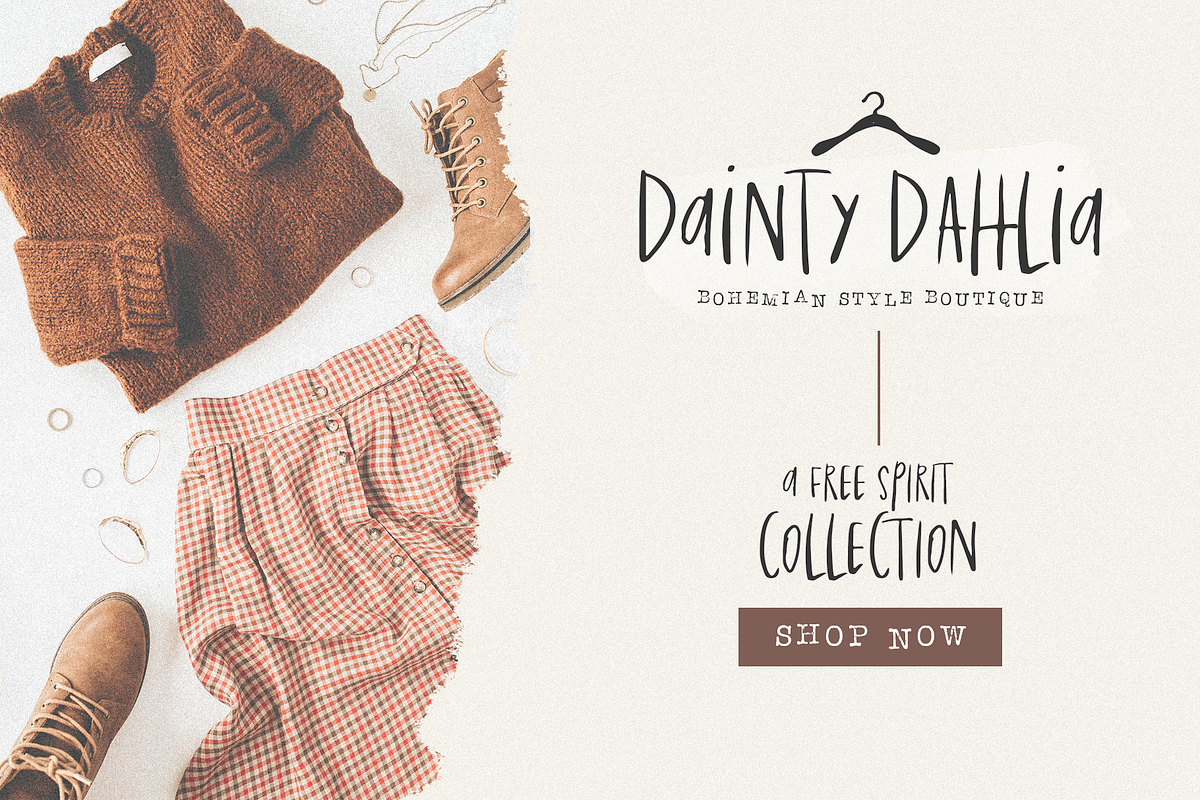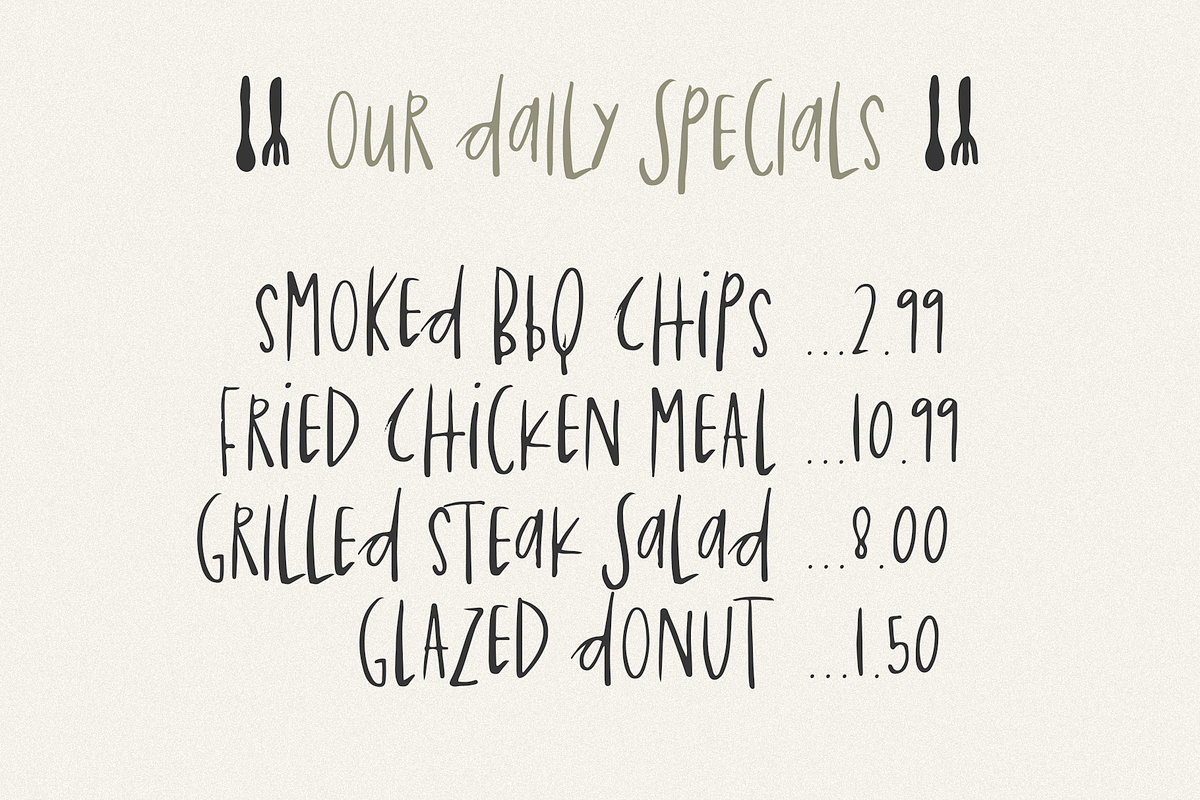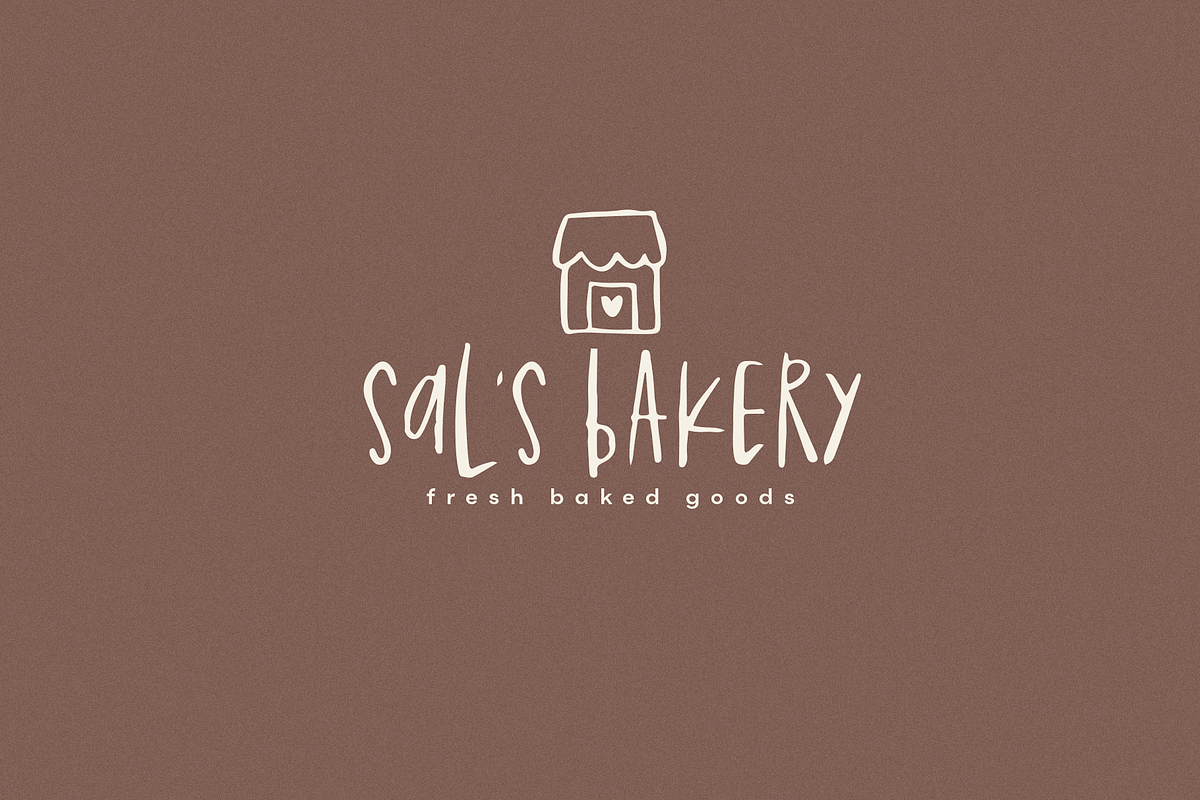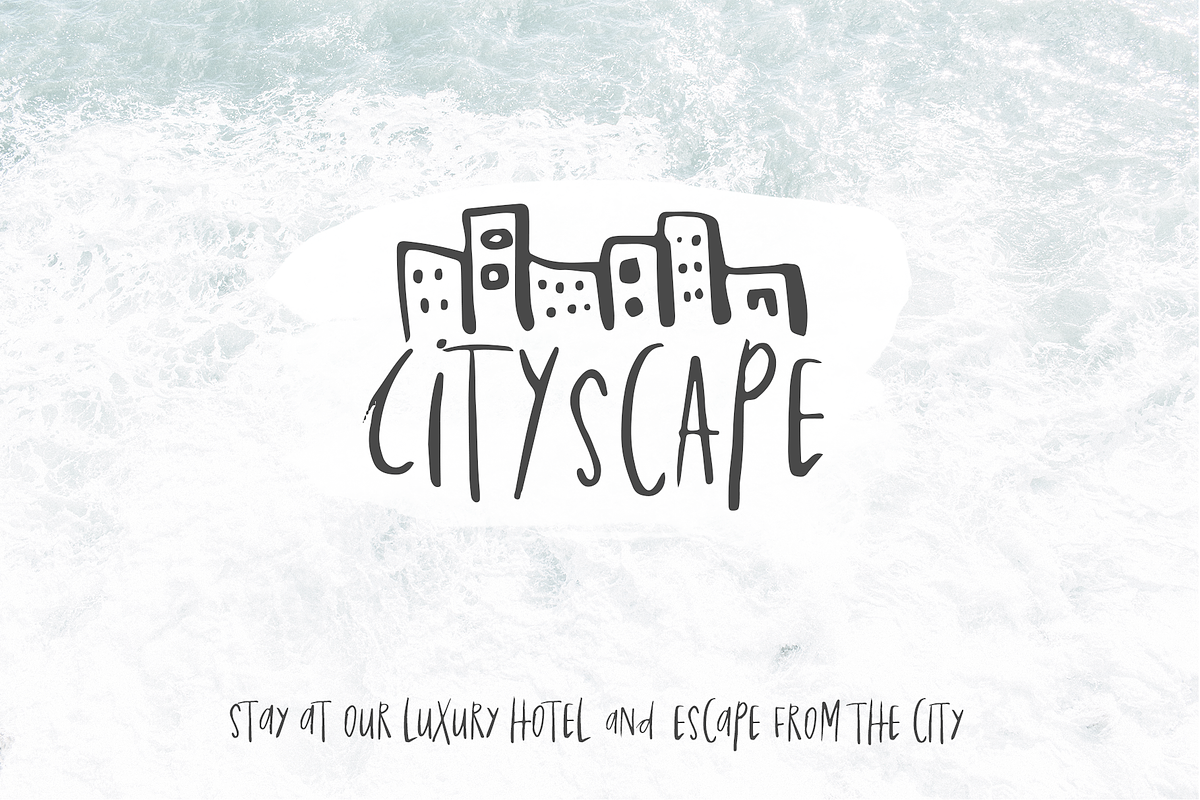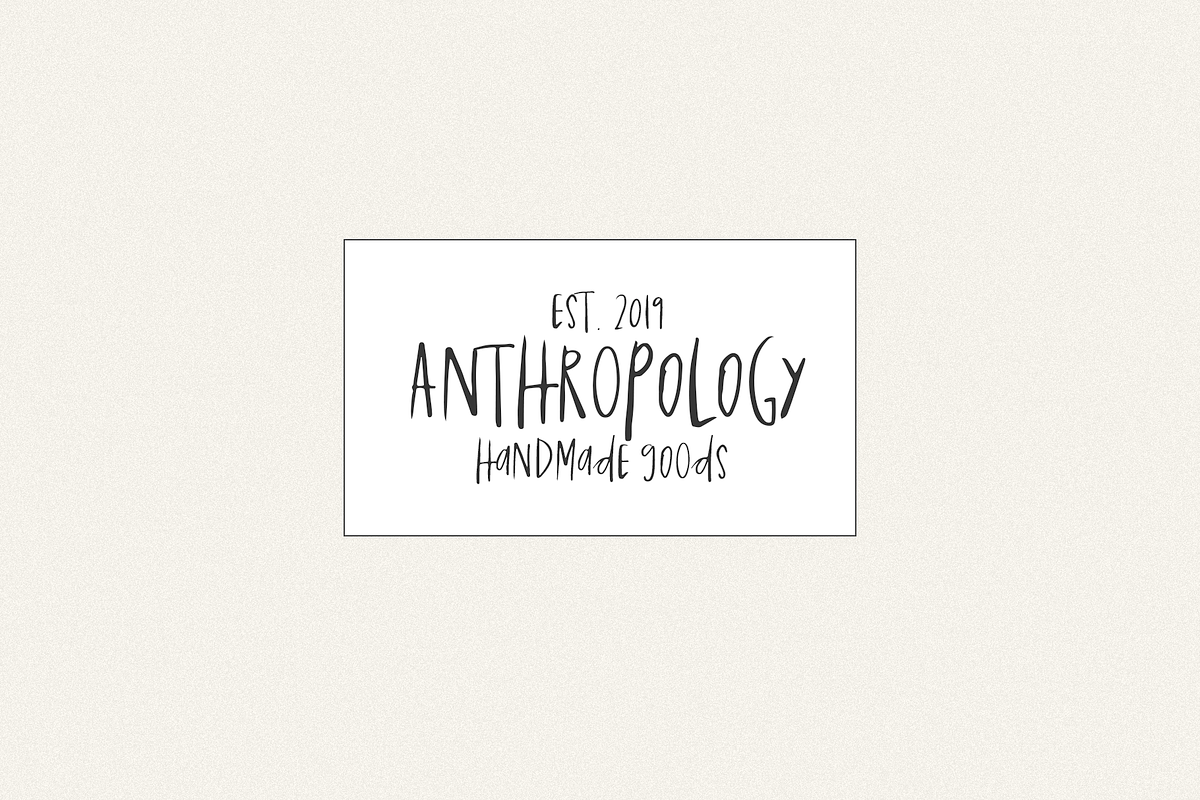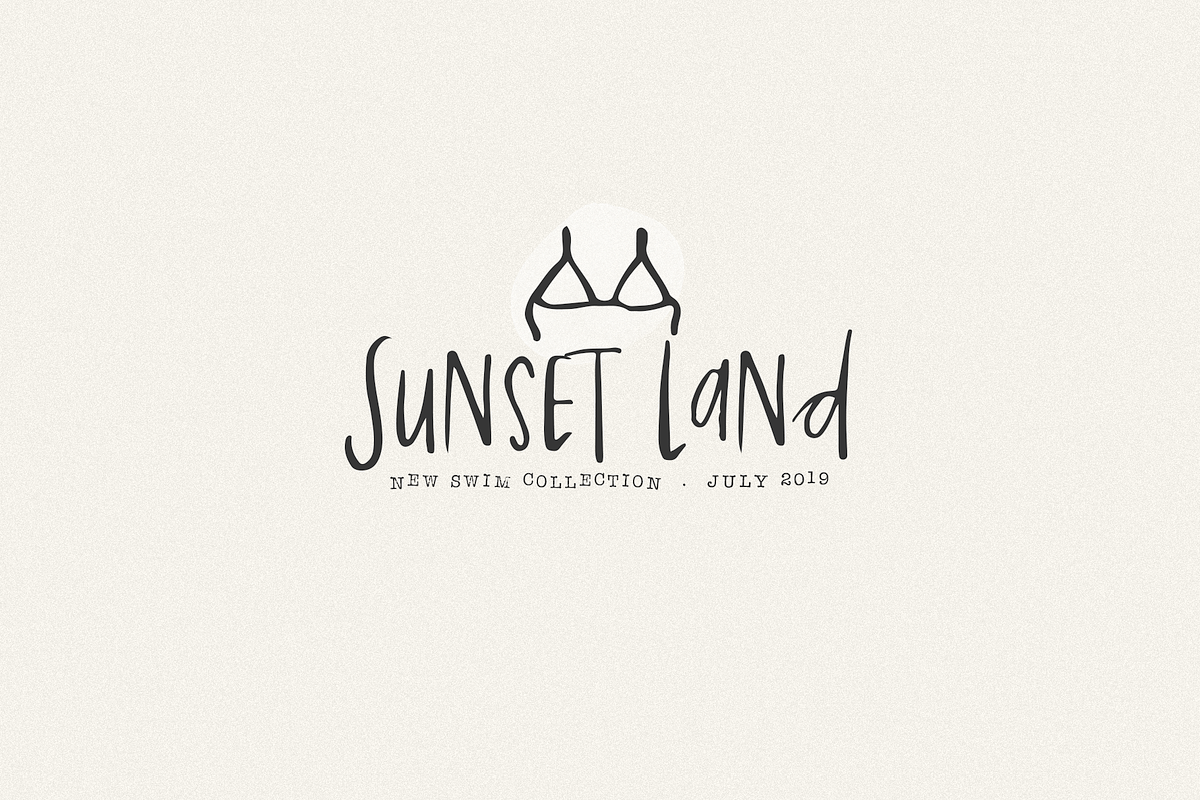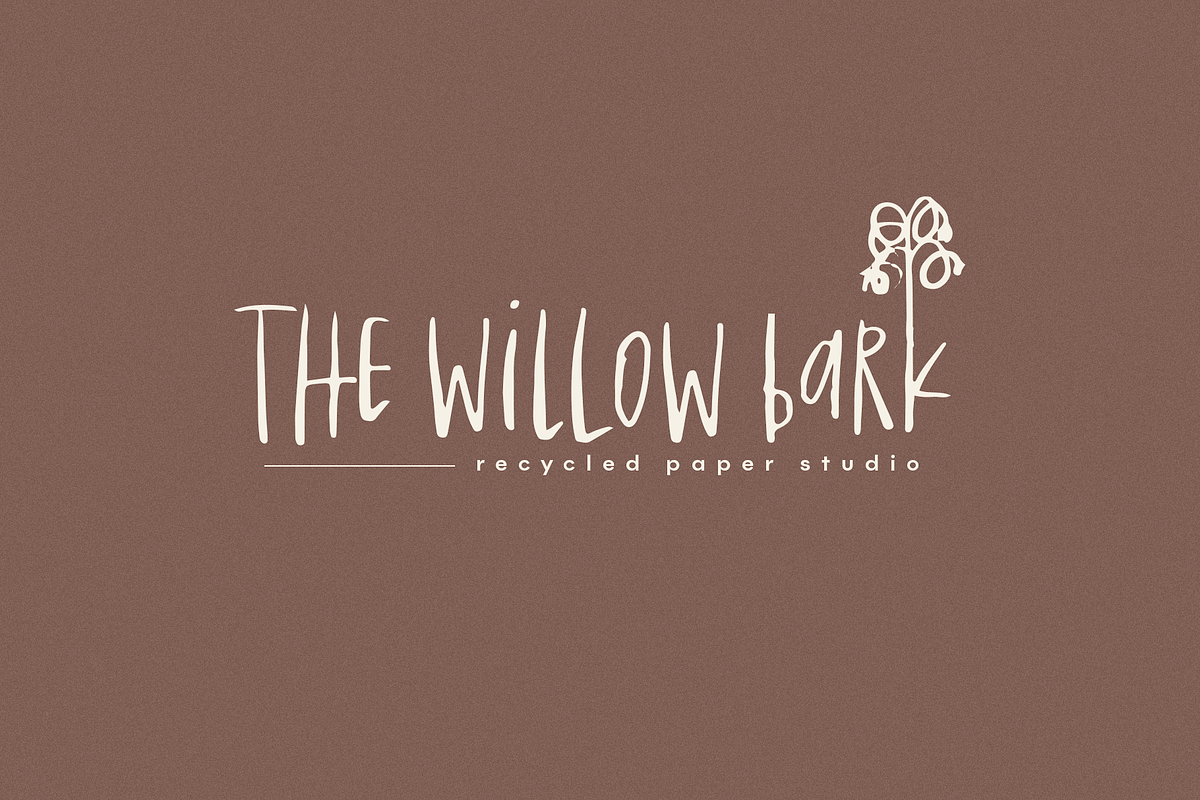
Magicland | A Handwritten Font
Magicland is a carefree, handwritten font. This font has a fun scrawl vibe. A set of complimentary doodles are included as a font file (use capital letters A-Z).
This font is perfect for unique projects, headings, blogs, logos, brandings, invitations and more!
- A set of complimentary doodles are included as a font file (use capital letters A-Z).